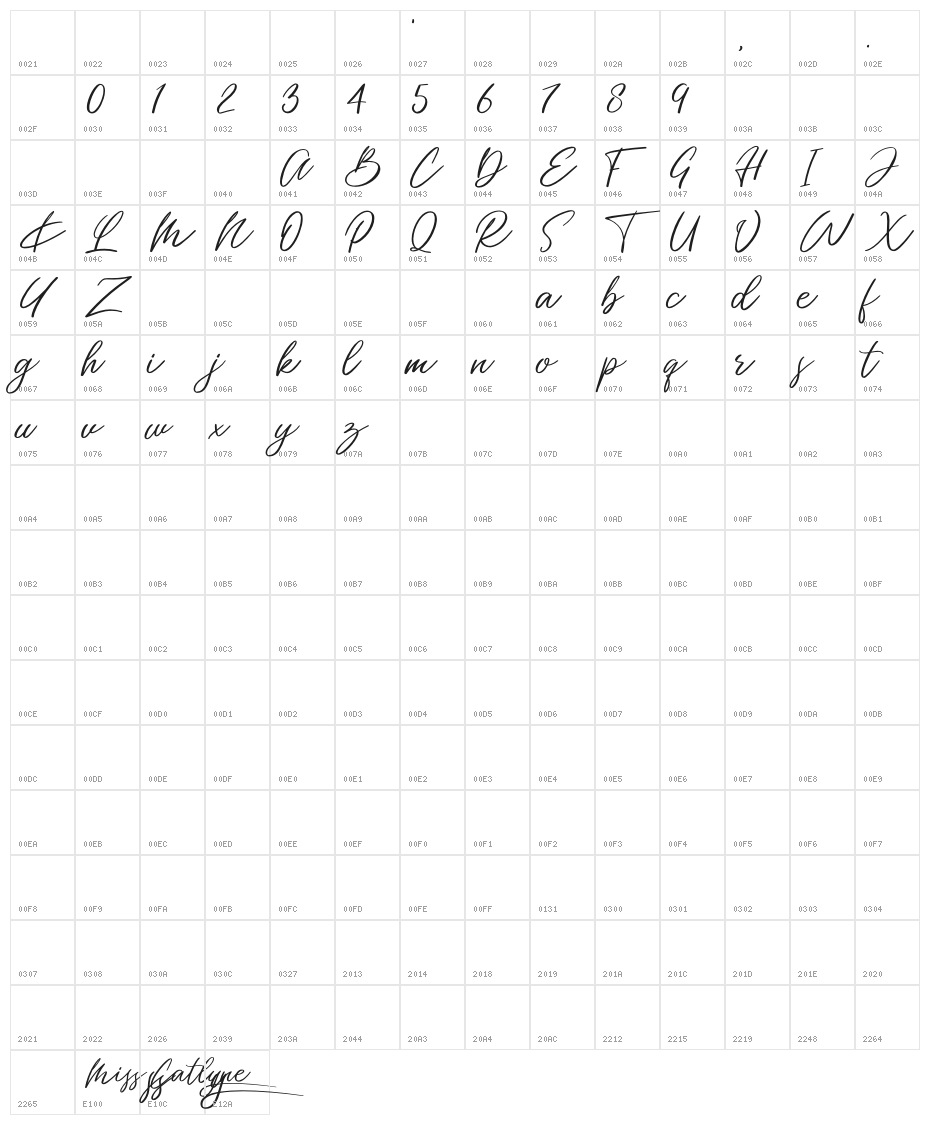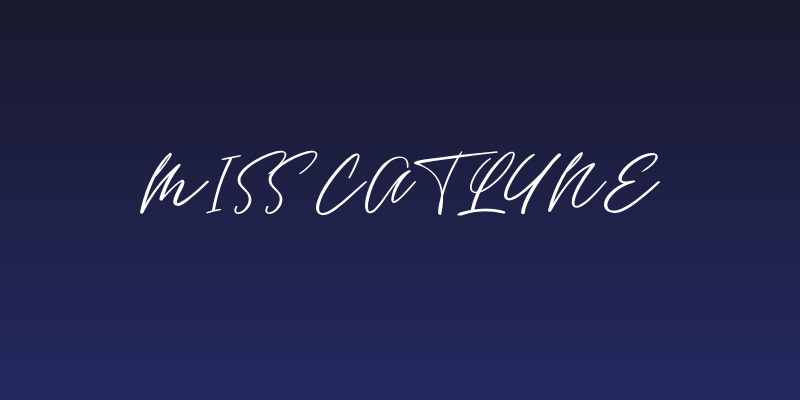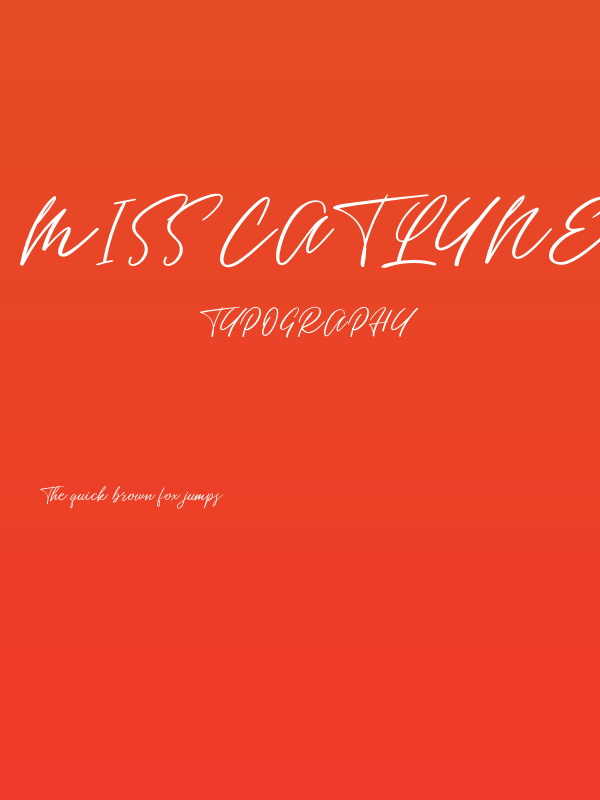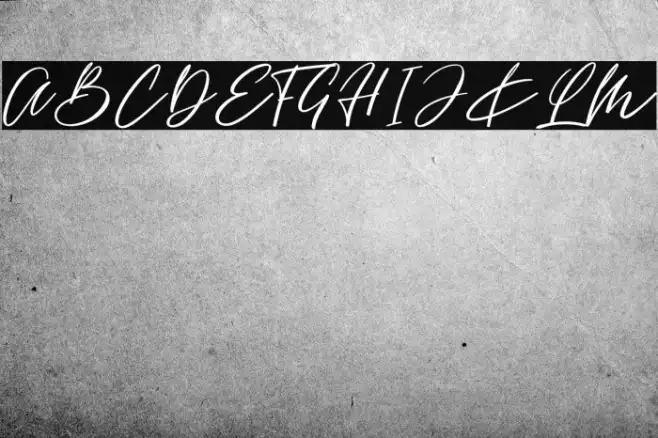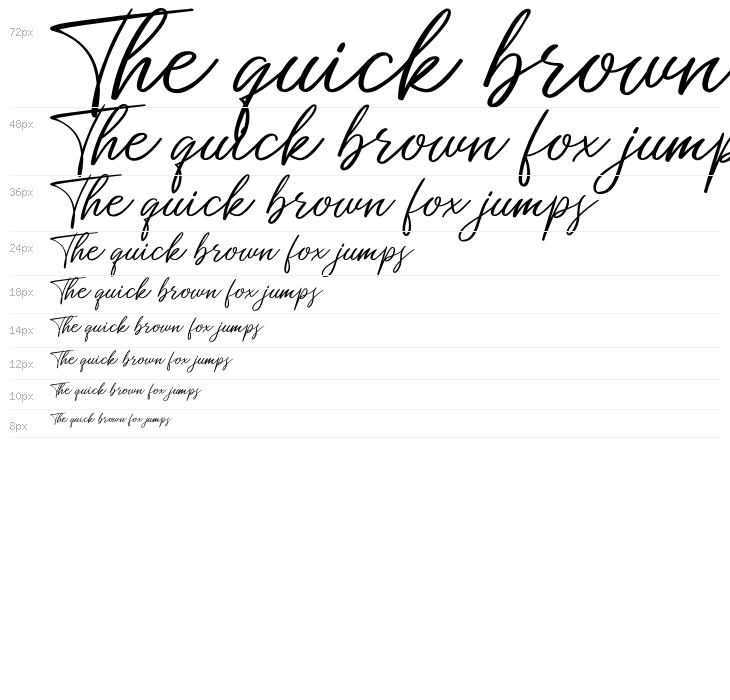
Miss Catlyne Font
Miss Catlyne Description
This font exudes a sense of elegance and fluidity, characterized by its cursive, handwritten style. The letters are connected in a smooth, flowing manner, reminiscent of traditional calligraphy. The uppercase letters are slightly more ornate, with subtle flourishes that add a touch of sophistication. The lowercase letters maintain a consistent rhythm, enhancing readability while preserving the artistic flair. The numerals and special characters are designed to complement the overall aesthetic, ensuring a cohesive look across all text elements. This font is perfect for projects that require a personal, artistic touch.
| Proposed Projects | Ideal for wedding invitations, greeting cards, personal branding, and artistic projects. |